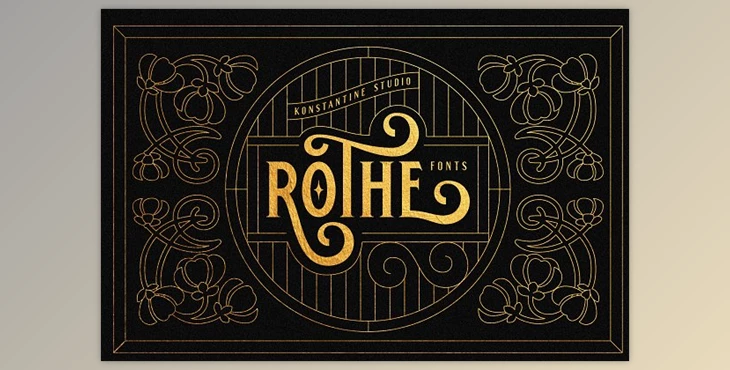
ROTHE – Vintage Luxury Font 2445803: ROTHE is an elegant vintage-style font. The branding of the old-fashioned era influences it. It has a full range of decorative features and a complex design. You will feel luxurious instantly.
It includes Uppercase, Lowercase, Numbers and Punctuations, Multilanguage Support, and Alternates for the Uppercase, including swashes, outline versions, and decorative elements in the font files.